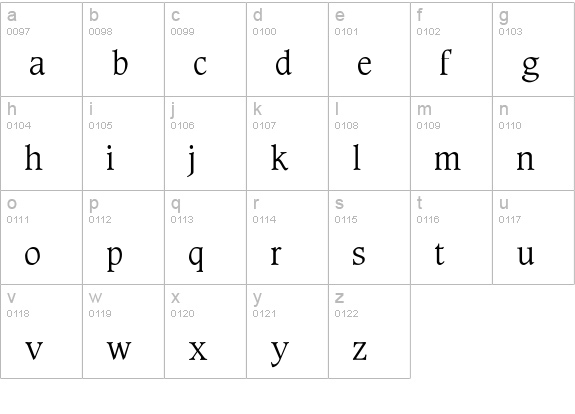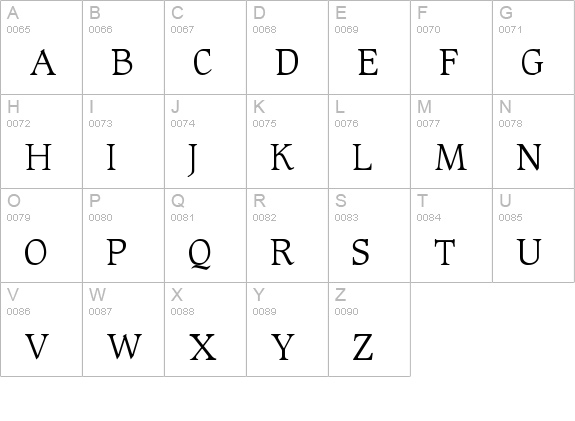
Thomas-Light-Light Font Details
Thomas-Light-Light is a refined, elegant variant in the Thomas typeface family \xE2\x80\x94 well suited to elegant body text, refined sub-headings, and luxury branding.
Introducing the captivating Thomas-Light-Light font, a stunning typographic masterpiece that effortlessly combines elegance with modernity. This font showcases a harmonious blend of refined curves and clean lines, resulting in a visually pleasing design that is sure to captivate any audience. Thomas-Light-Light exudes a sense of sophistication and grace, making it the perfect choice for a wide range of design projects. Whether it's creating eye-catching logos, crafting memorable branding materials, or designing striking print layouts, this font is your ultimate creative companion. Featuring a light weight, Thomas-Light-Light adds an airy and ethereal touch to any text, allowing your words to float effortlessly on the page. Its legibility remains unparalleled, ensuring that every letter is crystal clear and easy to read, even at smaller sizes. But what sets Thomas-Light-Light apart from the rest is its accessibility. We understand the importance of providing designers with the tools they need to bring their visions to life, which is why this font is available for free download at FontsMarket.com. Yes, you read that right – Thomas-Light-Light can be yours without spending a single penny. Unleash your creativity and explore the endless possibilities that Thomas-Light-Light offers. From digital projects to printed materials, this font will elevate your designs to new heights, making them stand out in a crowd and leaving a lasting impression. Embrace the beauty of Thomas-Light-Light and let it be the beacon that guides your artistic journey. Download this remarkable font today at FontsMarket.com and embark on a design adventure like no other.